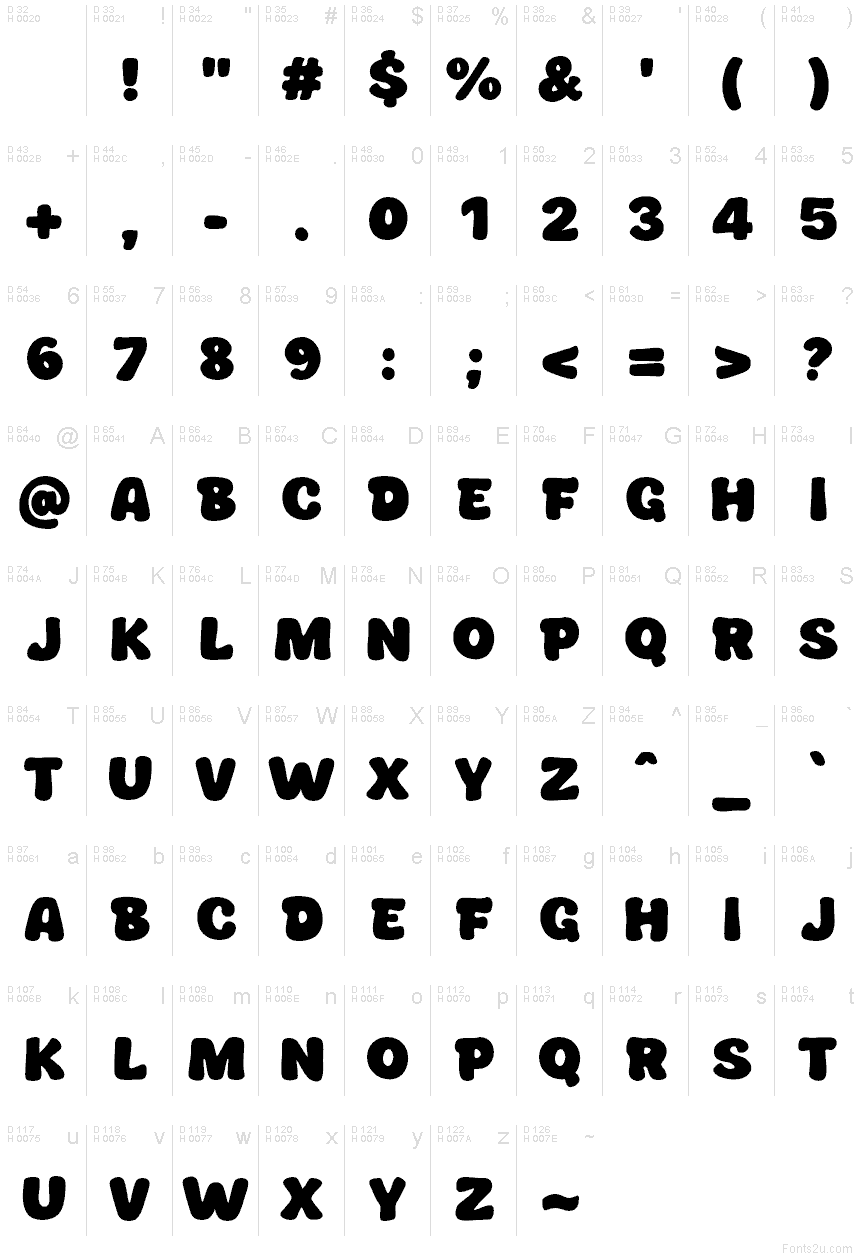
Puffy Caps
Puffy Caps font by MJType is a display typeface with a whimsical and friendly cartoon style. Its rounded, voluminous, and retro-inspired design makes each character pop with bold impact, exuding a fun and engaging vibe.
Perfectly suited for playful branding projects, logo designs, packaging labels, book covers, poster art, product design, invitations or greeting cards. Websites or social media graphics will equally benefit when this free font adorns headings or captions.